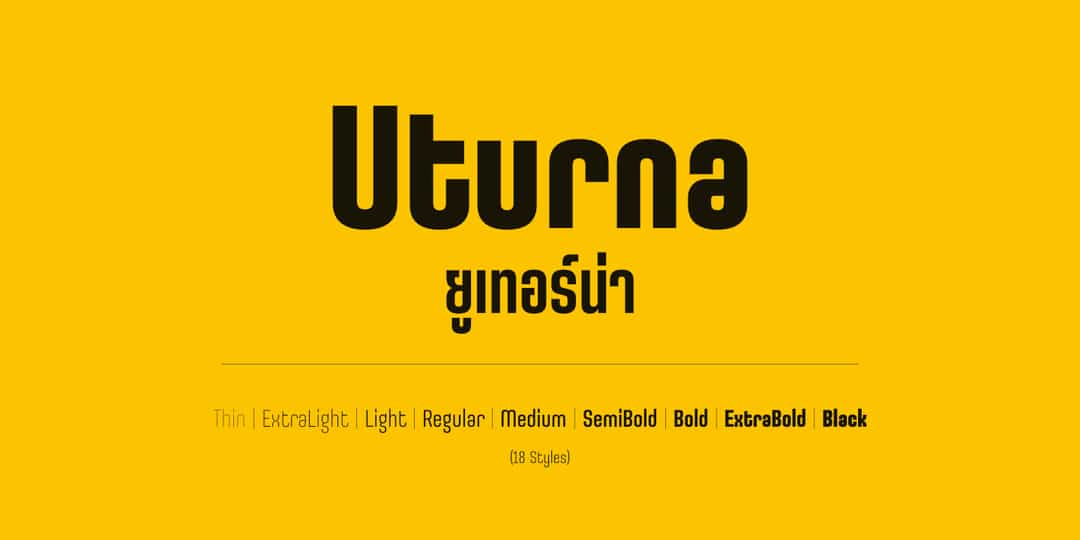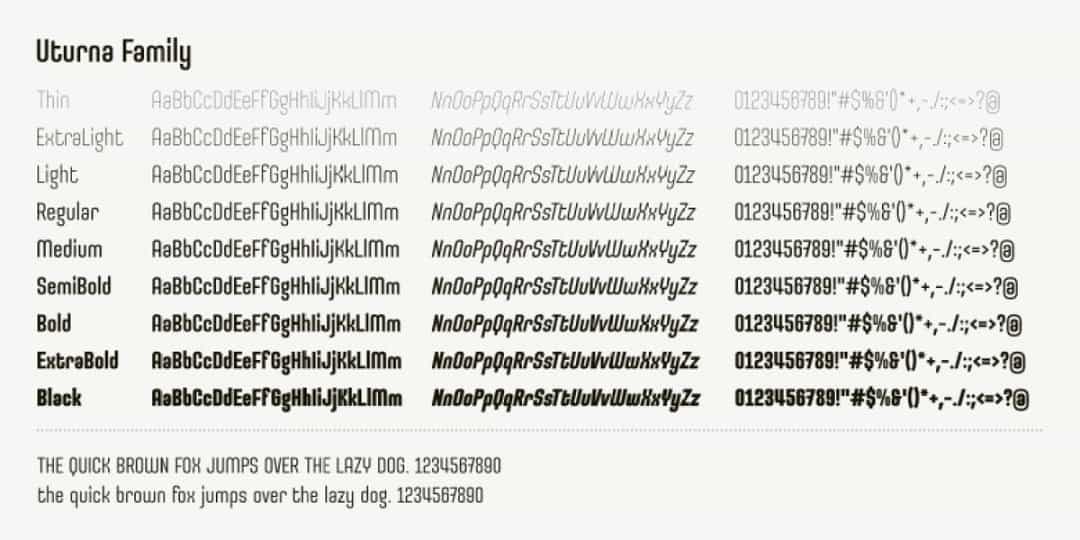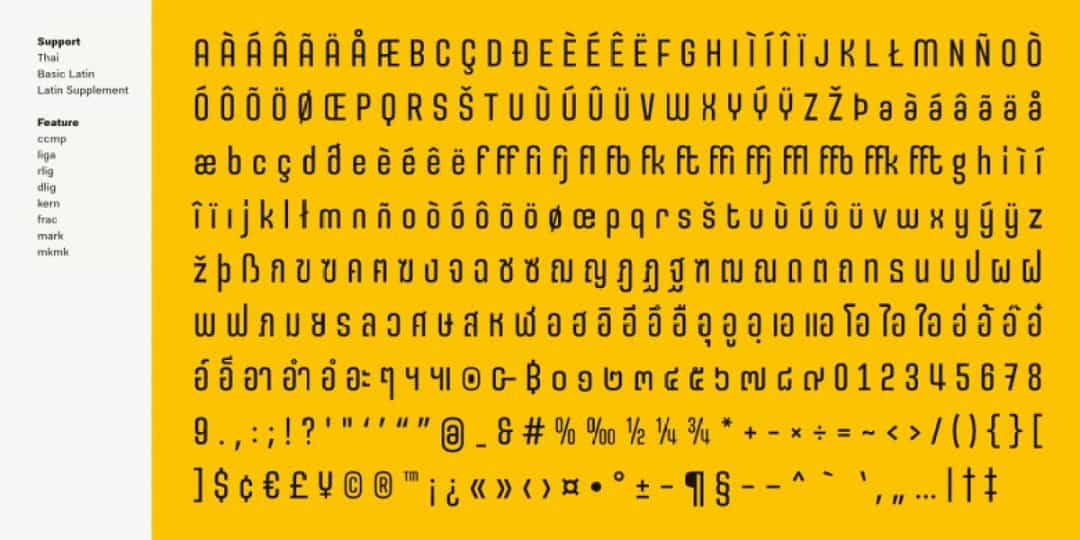
Uturna is an eye-catching sans-serif style, making an impressionful statement in displays or whenever the highest level of focus is necessary. Adyson is a striking structural typeface. Perfect for logos, branding designs, clothing branding packaging products magazine headers or as an elegant text overlay on any background photo!